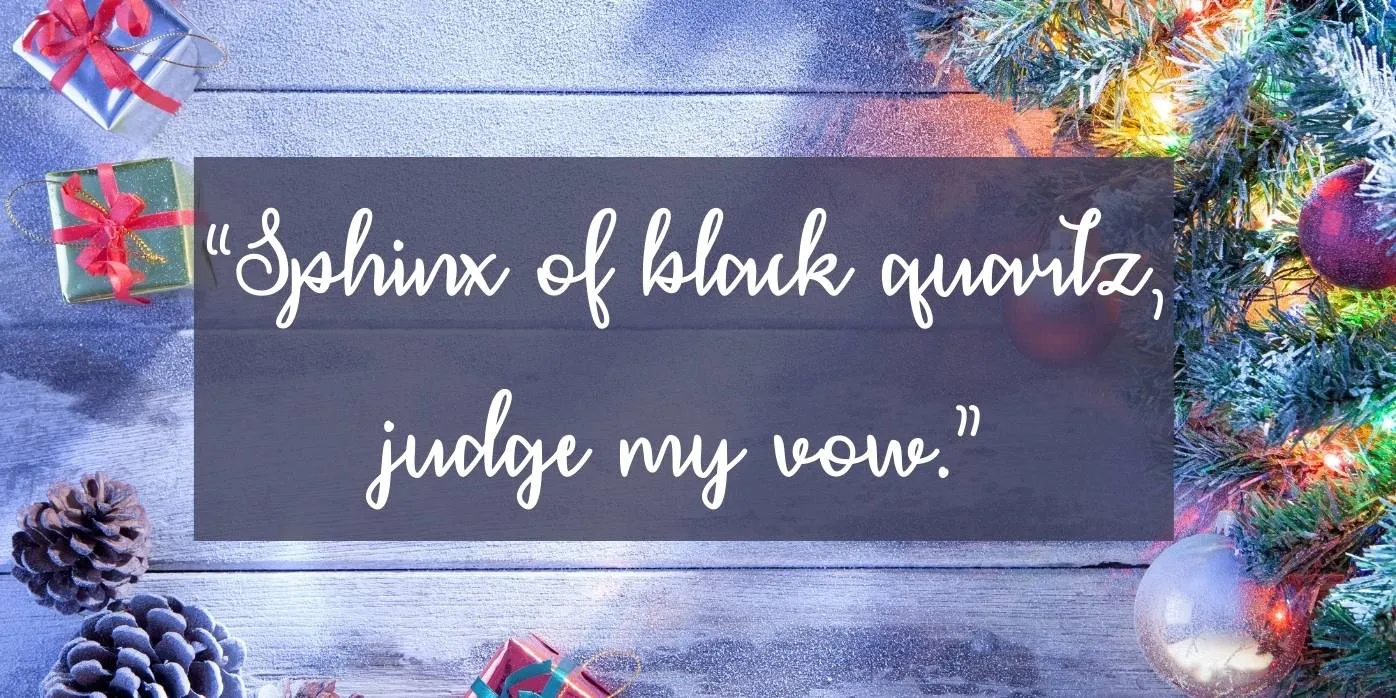
December Calligraphy Font
December calligraphy Font was developed by famous foundry Misti’s Fonts. It belongs to the Script typeface. It’s available in OpenType format. It was published on October 07, 2016, and takes an average price of $6.
This stylish font is very durable and can be used for a wide range of purposes such as print media and digital media and also used in application software. It provides great performance. December Calligraphy Font has a lot of automatic features which provide a smooth user experience. Allure Font is one of the most similar to this classy typeface.
It has professional typography with an extensive character set that supports over 50 languages, advanced kerning, and contextual alternatives. It is specified by the CSS family. This has a large X- Sze Height. This marvelous font has a stylish color combination in it.
It’s a great choice for designing greeting cards, writing Thank You cards, or any other related messages. It has keen and clean features. It’s ideal for the modern lifestyle. It contains a lot of OpenType features such as ligatures, stylistic alternates, and swashes.